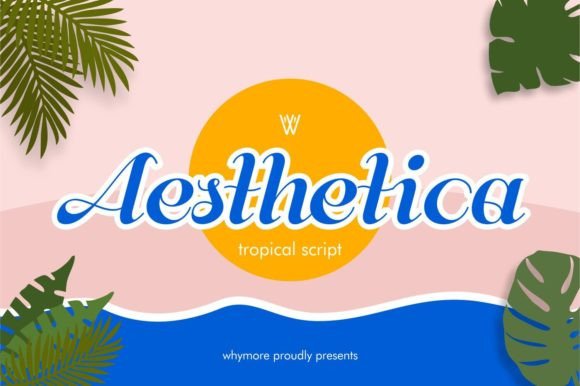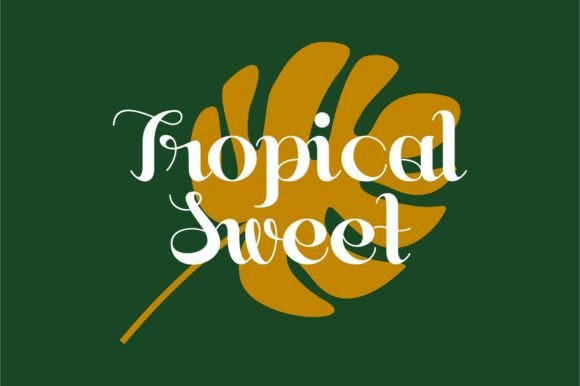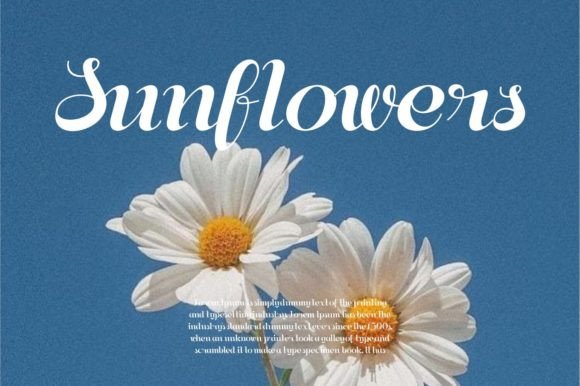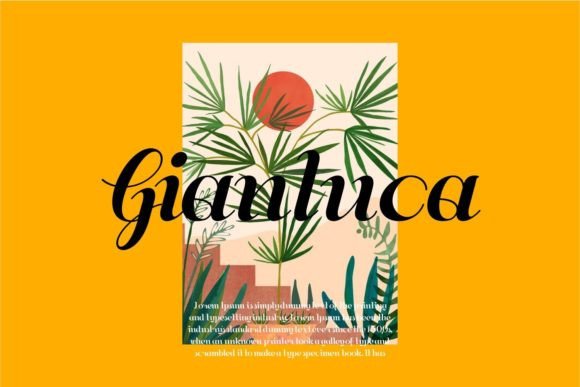
Aesthetica Font: Elegant Calligraphy Script for Wedding Invitations
About the Aesthetica Font
Discover the charm of Aesthetica Font. This font is a perfect blend of modern aesthetics and classic appeal. Aesthetica feels incredibly elegant and flowing. It looks stunning on wedding invitations, thank you cards, quotes, greeting cards, logos, business cards and every other design which needs a handwritten touch. It features a varying baseline, smooth lines, gorgeous glyphs and stunning alternates.
Aesthetica’s elegant, flowing nature makes it ideal for branding projects requiring a touch of sophistication, particularly logos, short-form marketing materials, and high-end packaging. It excels in headlines and short text blocks, adding a hand-crafted feel. However, its varying baseline makes it unsuitable for body text or lengthy paragraphs, impacting readability.
Consider pairing Aesthetica with a clean sans-serif like Lato for a balanced contrast, or a classic serif such as Garamond for a more traditional feel. For a modern twist, a geometric sans-serif like Montserrat could be effective. Avoid pairing it with overly ornate or highly stylized fonts which might compete with its distinct character.
The font projects a sophisticated, yet approachable personality; it’s elegant without being overly fussy. It’s perfect for brands focused on luxury, artistry, or personal expression, but would be less suitable for applications requiring high legibility or a minimalist aesthetic.
Aesthetica Font Usage Examples
Aesthetica Font Example